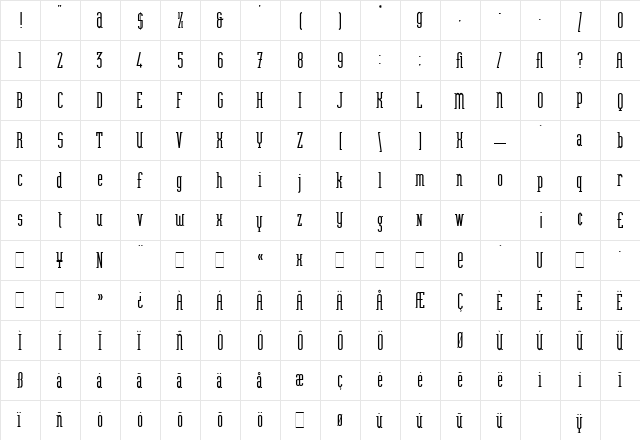
Heliotype LET Plain
Design Context for Heliotype LET Typeface
Heliotype LET is a composed and adaptable typeface that performs quietly and consistently across a wide range of design contexts.